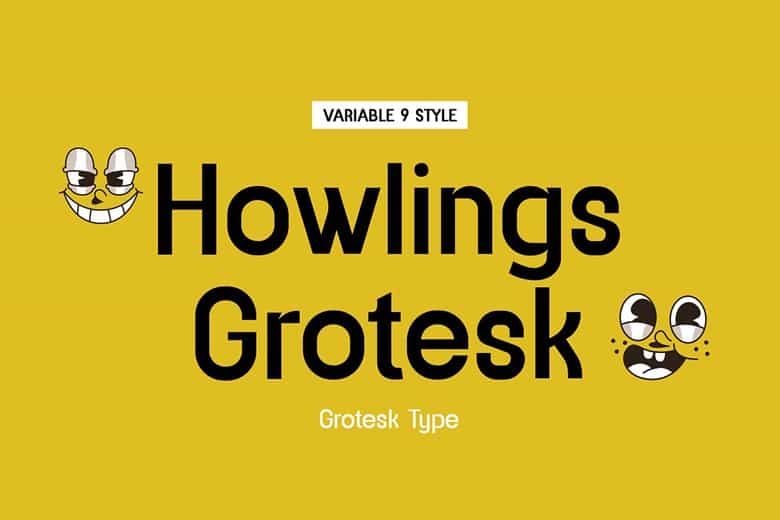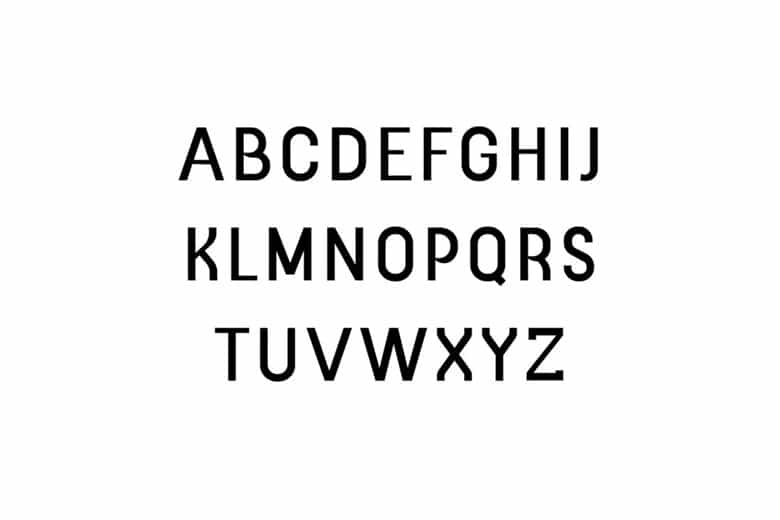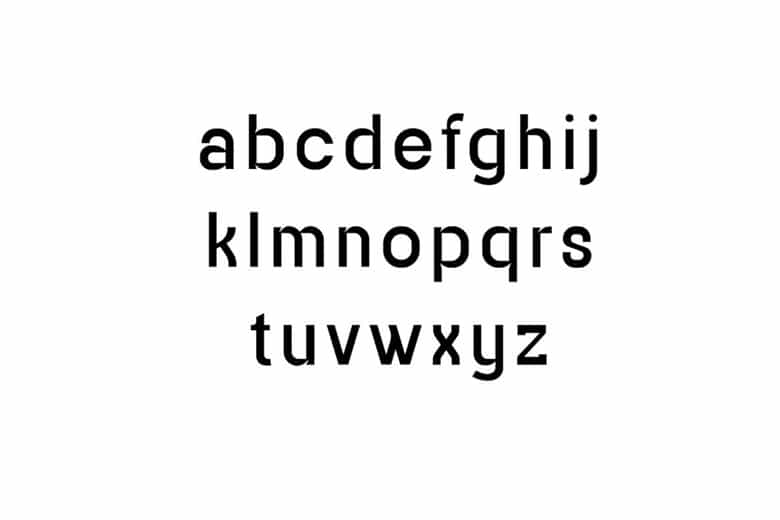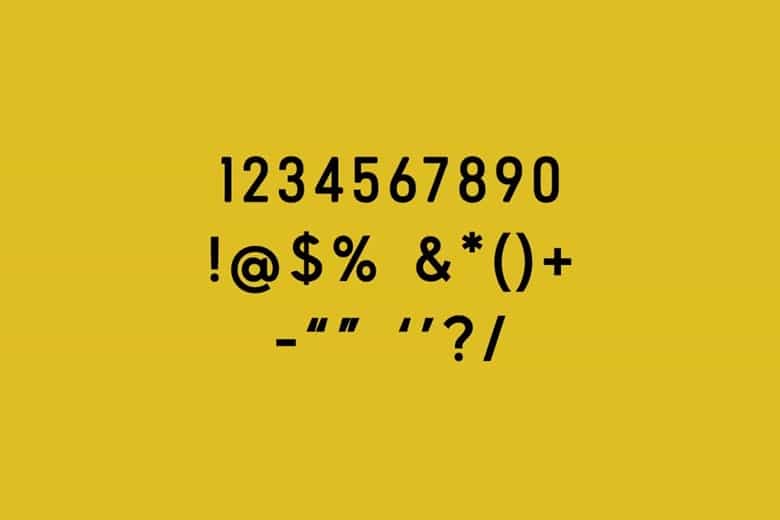
Howlings Grotesk is an extended sans serif font family which is elegant and simple in design and gives a fresh look to the text. This font is versatile meaning it can be used in many different projects like stationery, logos, wedding invitations, magazines or book covers, headers for websites, branding and much more.